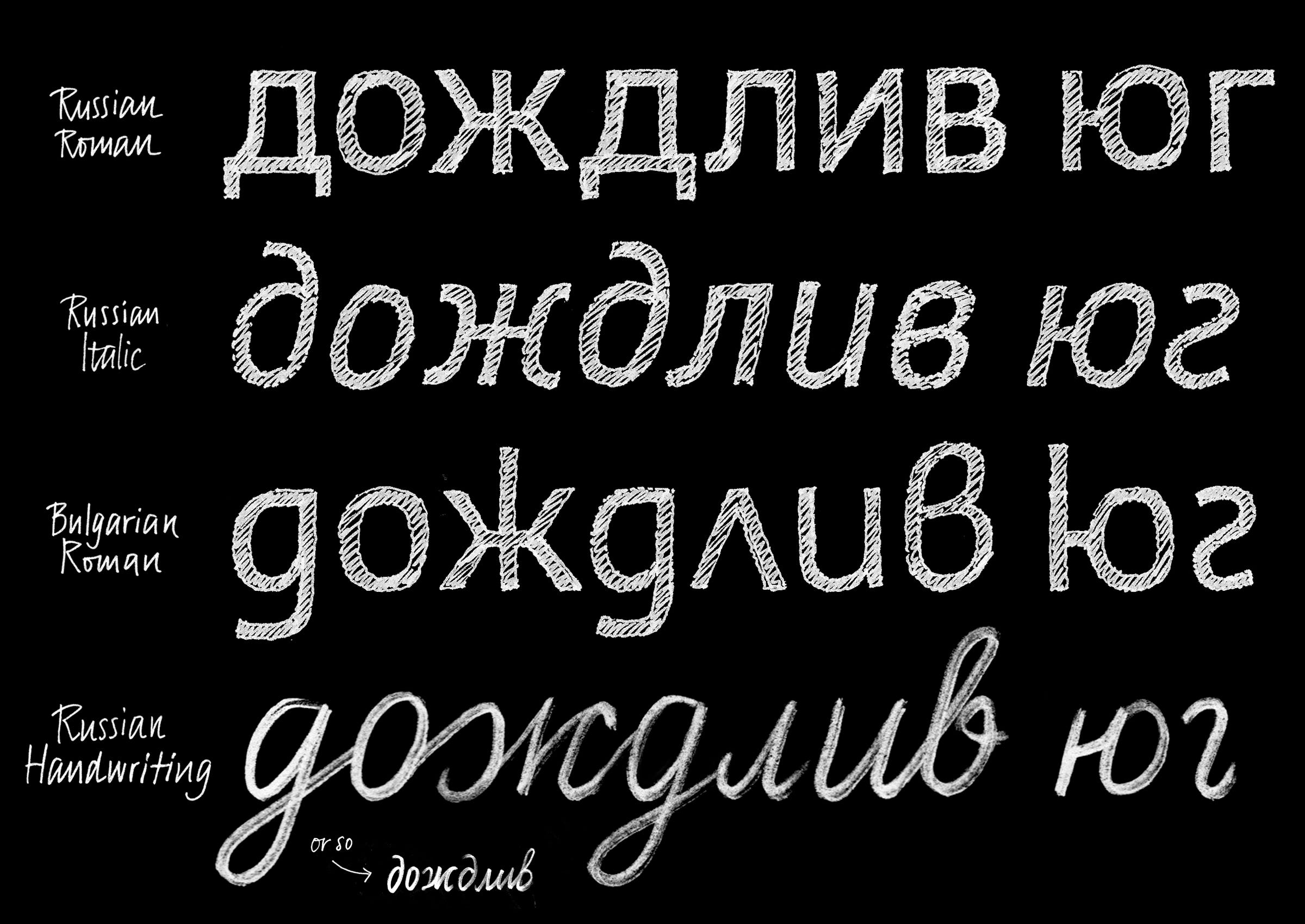
I bend/incline it as if i would be colouring and. However, the main content preserves the same typographic choices and uses karmina again.
List Of How To Make Typefaces Free Download, Then with a pencil or a marker, i make corrections and design the letters’ details. In how to create typefaces cristóbal henestrosa, laura meseguer and josé scaglione answer these and many other questions in a straightforward and direct way.
The authors of how to create typefaces are type designers. Published in madrid by tipo e. The scanning and editing process is never routine; Glyphs has turned type design into an enjoyable process, with its integrated interface for drawing, spacing and kerning.
Anson Typeface The authors of how to create typefaces are type designers.
How to create typefaces is a guide book on the basic principles of type design by meseguer, henestrosa, and scaglione. Sketch out the letters by hand. Make your fundamental font design choices Always pay attention to what’s in front of you and use each step as a chance to tweak.
In how to create typefaces cristóbal henestrosa, laura meseguer and josé scaglione answer these and many other questions in a straightforward and direct way. Translated by christopher burke and. Make your fundamental font design choices This publication, aimed at new and novice type designers as well as those trained in the field, unravels the fascinating task of creating a font, from sketch to screen. The smARTteacher Resource Typeface Posters.
Script (or cursive) display (or decorative) you can split typefaces into the first three categories by looking at the style of the serif. Select the type tool (t), type down the whole type. Always pay attention to what’s in front of you and use each step as a chance to tweak. Next, we access the following address from file explorer: How to Create Typeface Characters.
The type designer worked to create a font that works well on the horizontal. Learn how to use font manager to create your very own animated typeface from scratch in just 5 mintues. A conversation with typographer erik spiekermann. Sketch out the letters by hand. Royale Kingdom Vintage Typeface Vintage typeface, Graphic design.
Display typefaces are the most stylized, expressive, amusing, unique, and friendly. Make your fundamental font design choices Only when you know what your typeface will actually be used for can you really get started on the design. Written by cristóbal henestrosa, laura meseguer and josé scaglione. How to Make Any Typeface Look Premium Typeface, Business graphics.
Always pay attention to what’s in front of you and use each step as a chance to tweak. But some of these decorative fonts are considered good for titles and headers. Select the type tool (t), type down the whole type. This publication, aimed at new and novice type designers as well as those trained in the field, unravels the fascinating task of creating a font, from sketch to screen. Anson Typeface.
Glyphs has turned type design into an enjoyable process, with its integrated interface for drawing, spacing and kerning. Tipo e’s publication, cómo crear tipografías (how to create typefaces), has been recently published in english and launched in early summer 2017 at st bride library, london.the new edition, translated into english by christopher burke and patricia córdoba includes some content and design updates. But some of these decorative fonts are considered good for titles and headers. We will see how a short progress bar is applied which means that our. Learn to Make Your Own Fonts with These 10 Courses Creative Market Blog.
Next, we access the following address from file explorer: Only when you know what your typeface will actually be used for can you really get started on the design. Posted in tutorials design after effects by alex white on may 8, 2017. In how to create typefaces cristóbal henestrosa, laura meseguer and josé scaglione answer these and many other questions in a straightforward and direct way. How to create typefaces Typography Books Typography.Guru.
The type designer worked to create a font that works well on the horizontal. How to make a font. While this does not only work with serifs and sans serifs, this tends to be. Always pay attention to what’s in front of you and use each step as a chance to tweak. Font design 17 brilliant tips to create your own typeface Creative Bloq.
Ludwig übele designed the font ff tundra. Geometric sans serifs are constructed of straight, mono linear lines and circular or square shapes. These typefaces became popular in the nineteenth century and are therefore considered modern. How to create typefaces is a guide book on the basic principles of type design by meseguer, henestrosa, and scaglione. My Typo Blog Typeface selections.
Ludwig Übele Designed The Font Ff Tundra.
This publication, aimed at new and novice type designers as well as those trained in the field, unravels the fascinating task of creating a font, from sketch to screen. Glyphs has turned type design into an enjoyable process, with its integrated interface for drawing, spacing and kerning. How to create typeface characters step 1. Make your fundamental font design choices